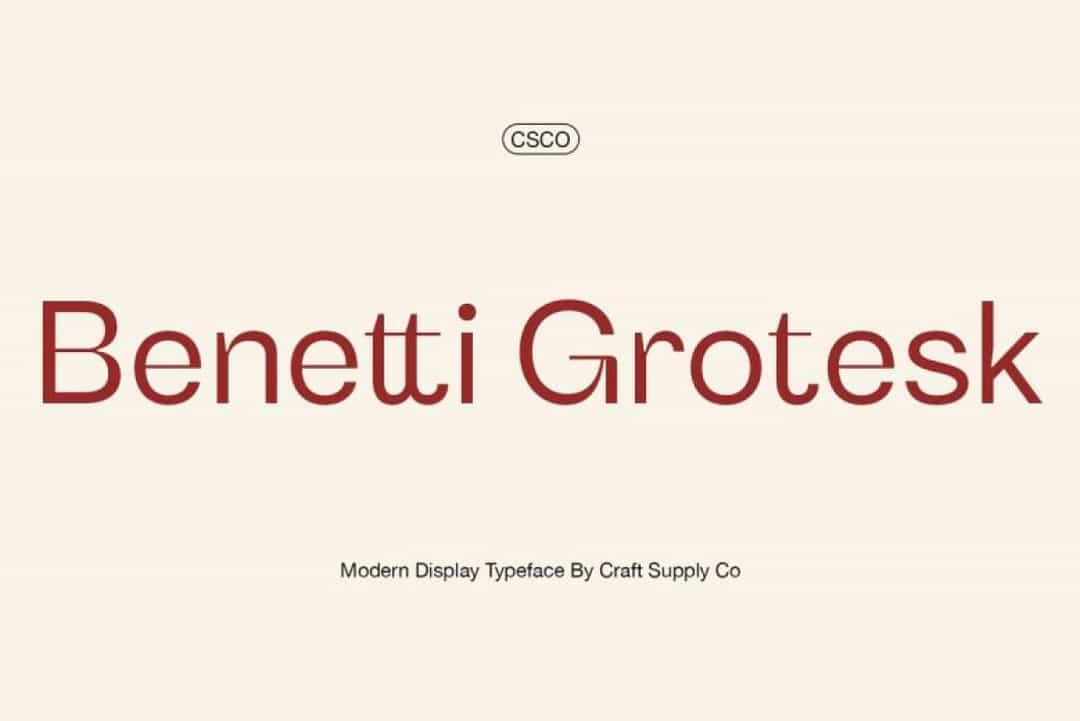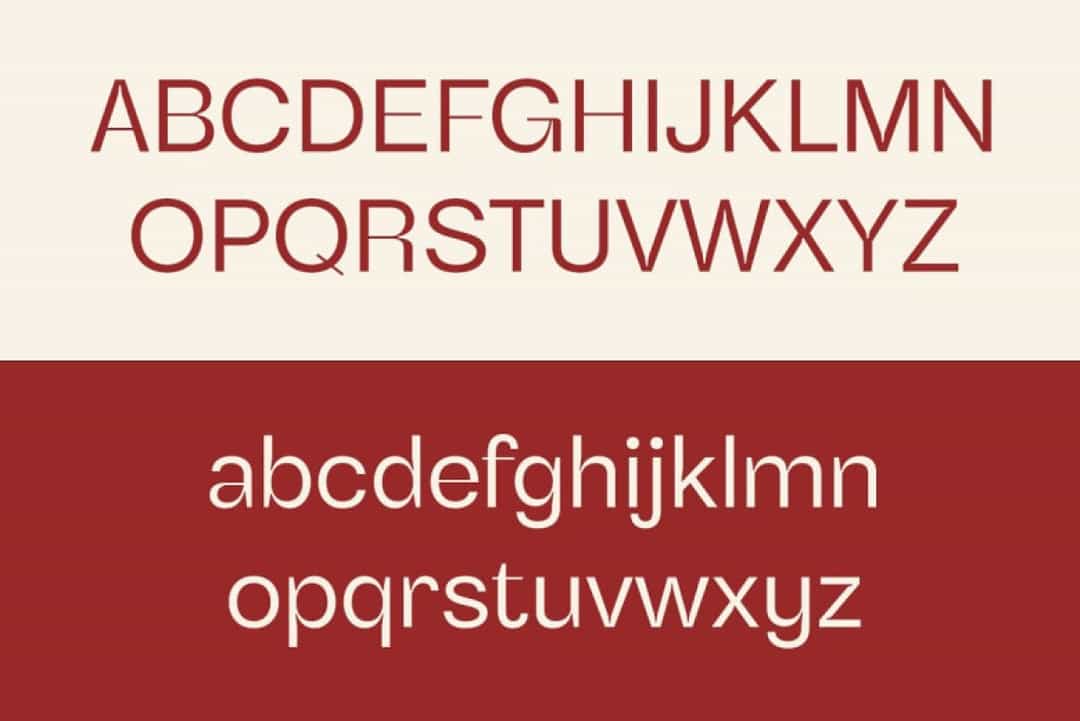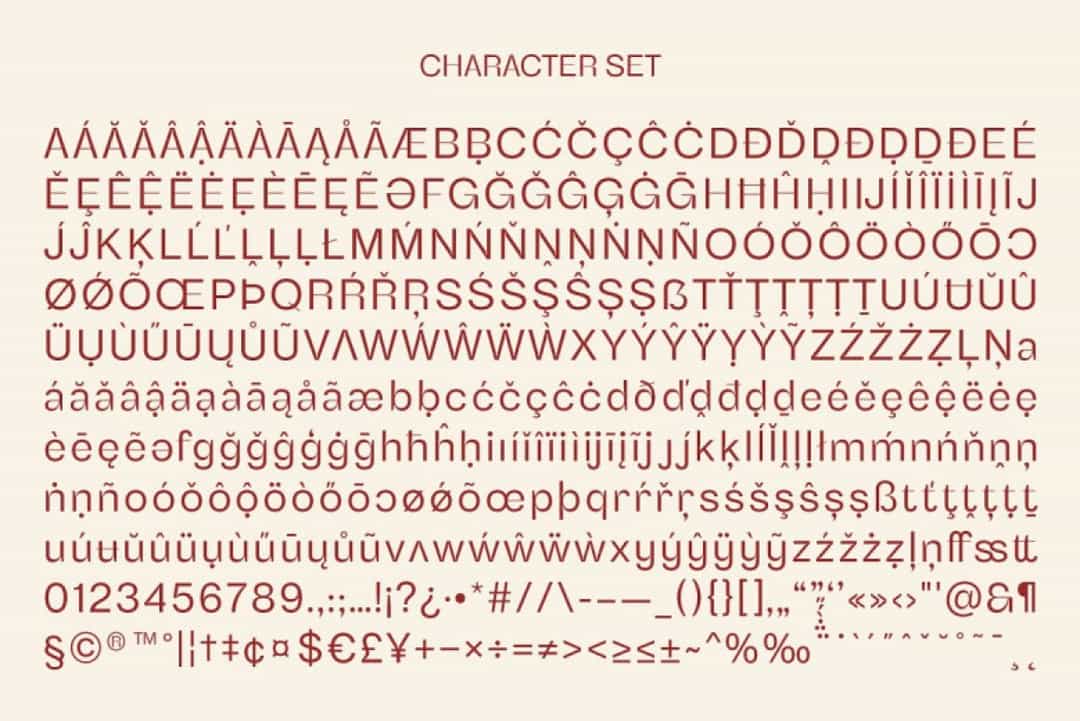
Benetti Grotesk is an intriguing modern sans serif typeface influenced by grotesque typeface design with some contemporary aesthetics to make it even more visually appealing for display purposes. Perfect for printed materials as well as design projects – be sure to use this typeface and watch how much more exciting and beautiful your work becomes with this typeface in it!